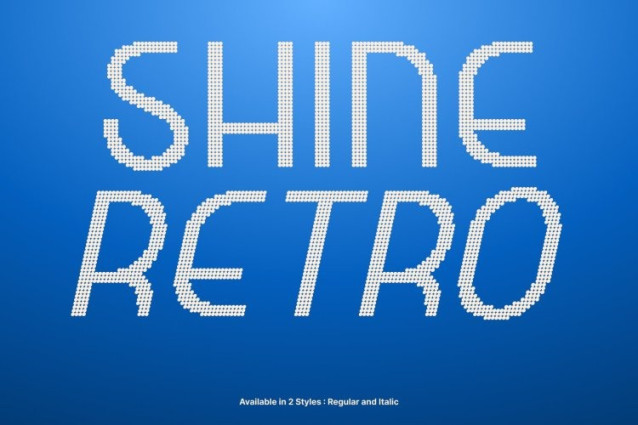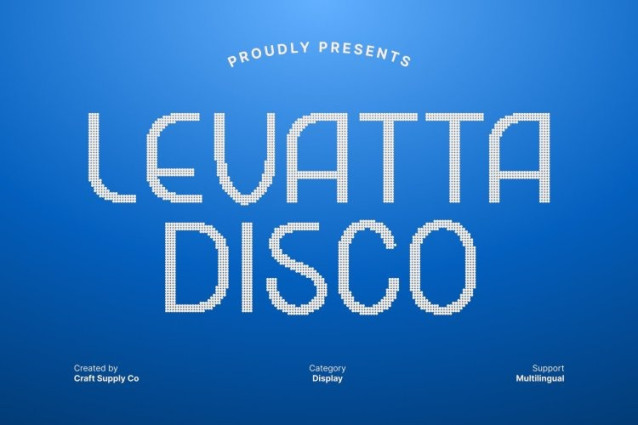
Levatta Disco Font
Levatta Disco Font This modern sans serif font showcases a contemporary, forward-thinking design built on unique and experimental shapes. Its clean yet adventurous structure gives every letter a bold personality, making the font feel fresh, expressive, and visually captivating. The dynamic curves and refined geometry bring a modern edge that stands out in any creative layout.
Disco Style for Sparkling Glamour
Infused with a lively disco aesthetic, the font radiates sparkle, glamour, and a festive energy. The disco effect adds shimmering highlights and a rhythmic visual pulse, giving the design a striking, celebratory atmosphere. This combination of modern minimalism and radiant disco flair allows the font to shine with both style and excitement.
Perfect for Posters, Contemporary Designs, and Bold Branding
Ideal for posters, party-themed visuals, modern branding, digital artwork, album covers, and promotional materials, this typeface thrives wherever you need a strong, eye-catching statement. Its energetic forms and glittery texture make it especially effective for headlines and display typography that aim to draw attention.
A Fusion of Modern Experimentation and Festive Expression
Blending contemporary sans serif precision with glamorous disco vibrance, this font delivers a unique visual identity that is both modern and celebratory. It’s the perfect choice for designers who want to create bold, stylish, and energetic designs that shine with creativity and personality.